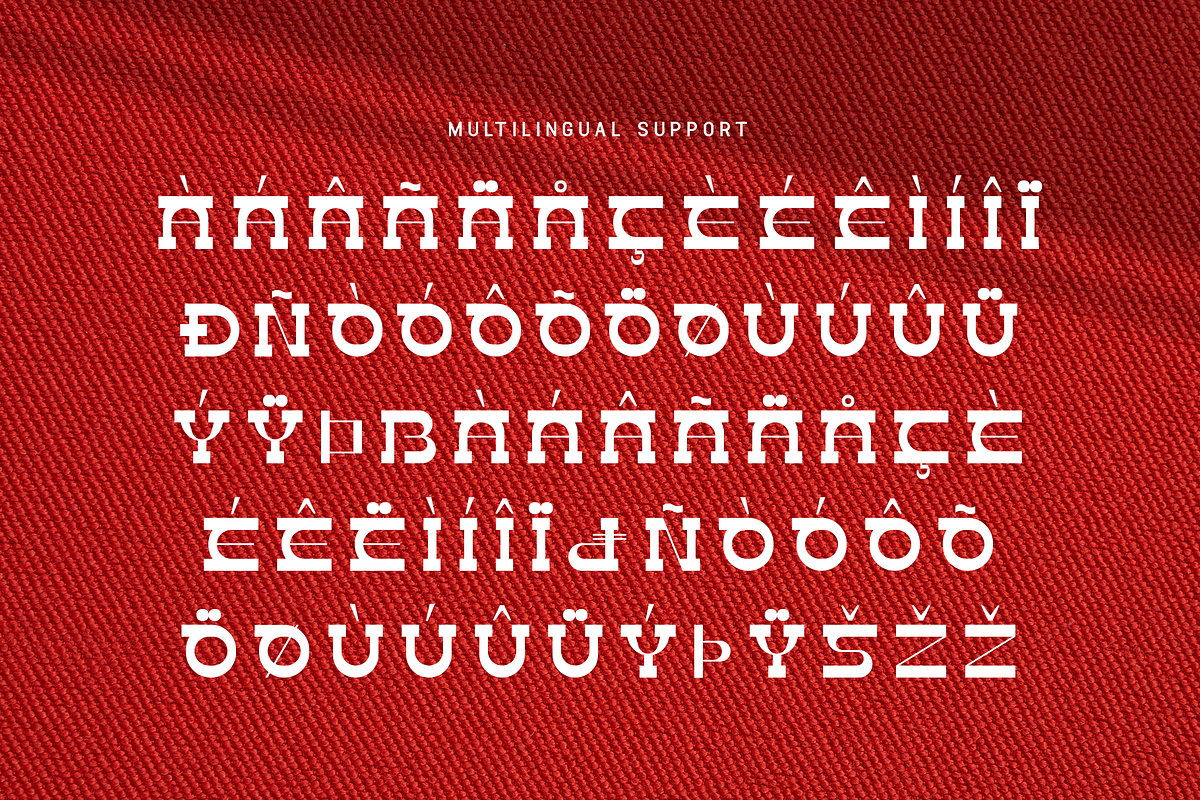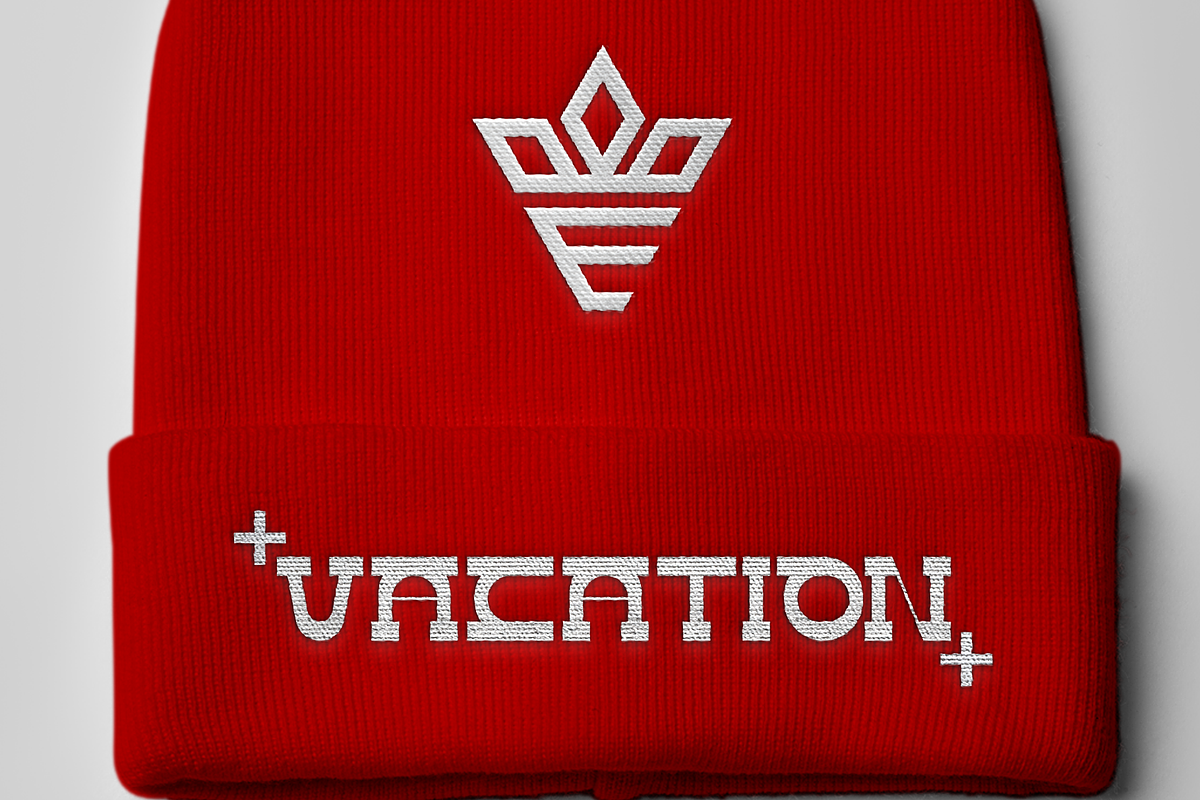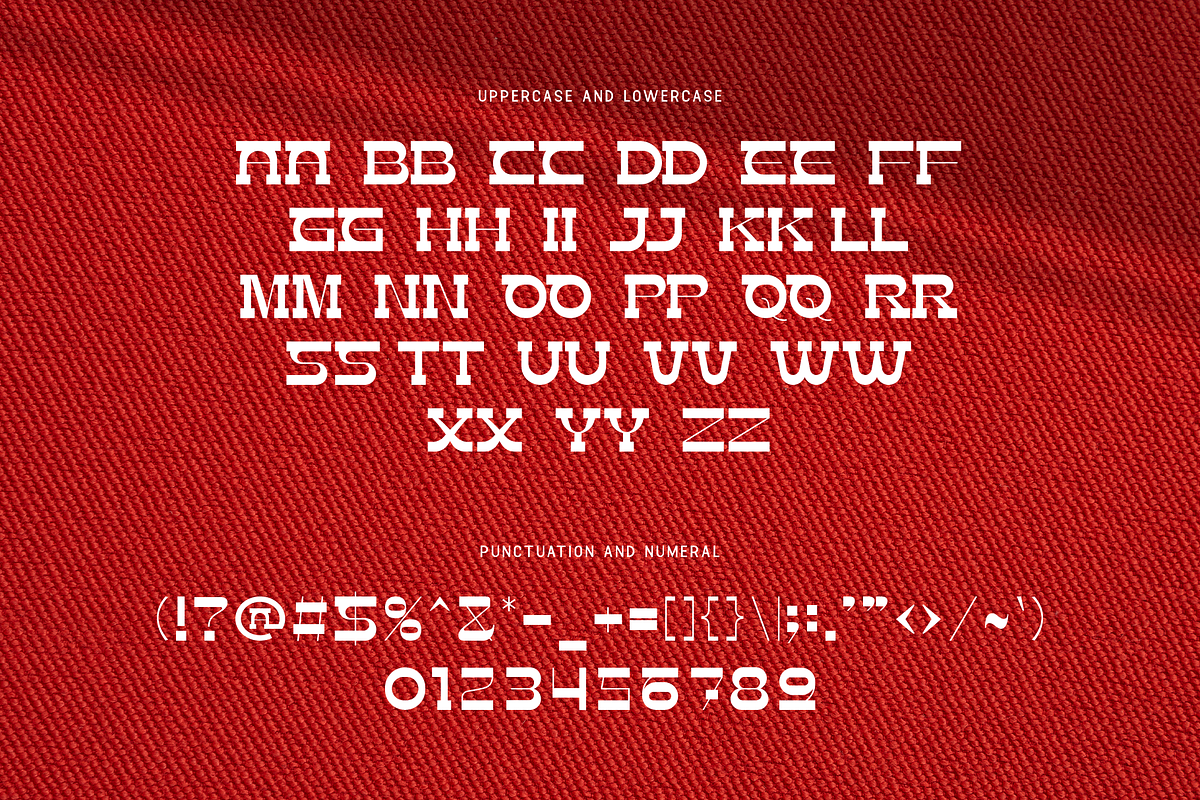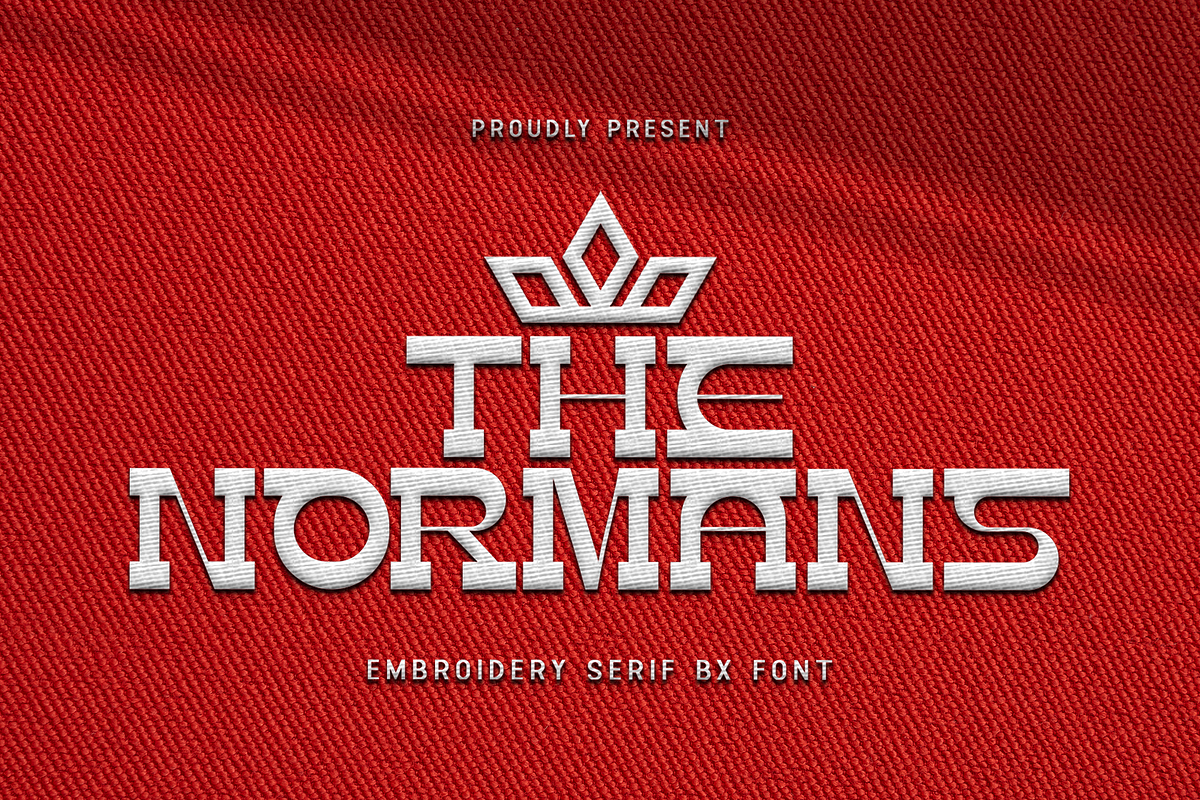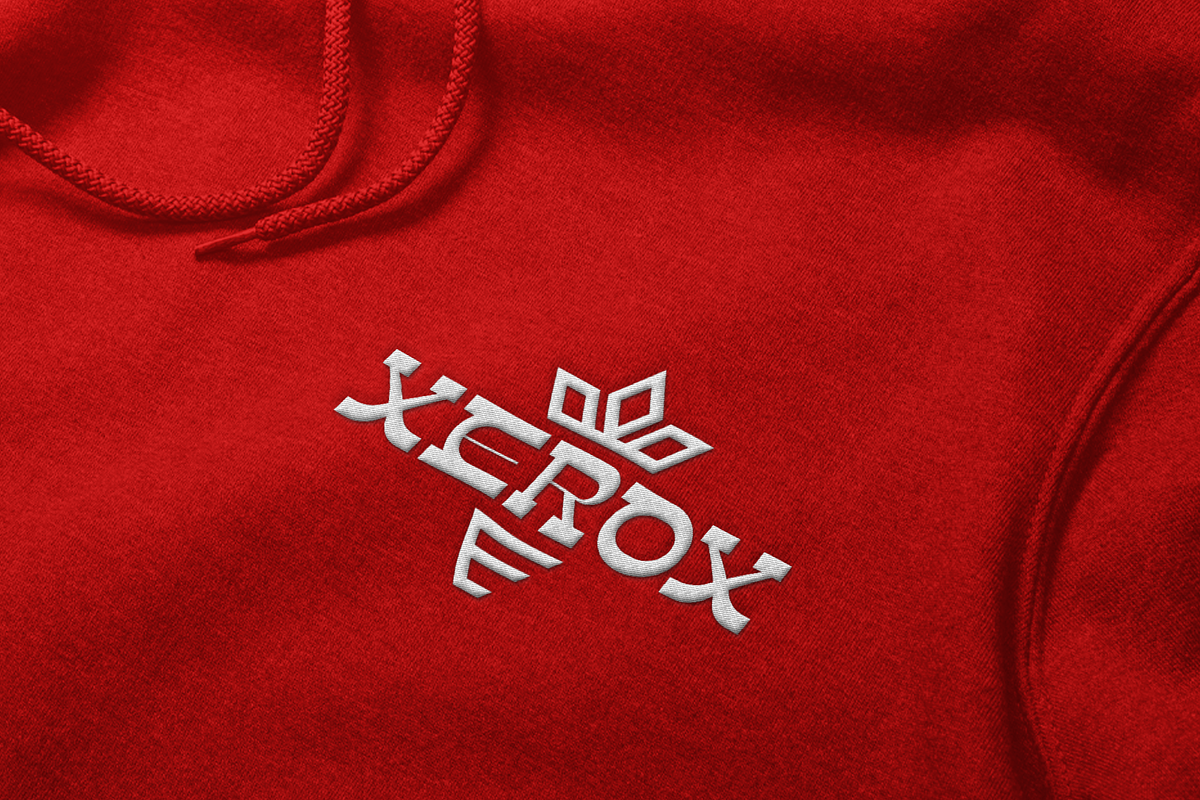
The Normans-Embroidery Serif BX Font
The Normans - Embroidery Serif BX Font
Introducing "The Normans," an embroidery serif BX font that captures the grandeur of historical design with the delicate art of embroidery. Perfect for designers and crafters seeking to add a touch of medieval elegance to their projects, The Normans seamlessly combines classic serif typography with intricate stitched details.
Expertly crafted, The Normans is ideal for a variety of applications including apparel design, home decor, personalized gifts, and more. Each character is designed to replicate the sophisticated texture of embroidered stitches, bringing a unique and regal aesthetic to your typography.
The "The Normans" font includes a comprehensive set of uppercase and lowercase letters, numbers, and punctuation marks, providing versatility and flexibility for all your embroidery needs. Whether you're embellishing clothing or creating decorative home accessories, The Normans enhances your designs with its historic and elegant charm.
Embrace the elegance of medieval craftsmanship with The Normans embroidery serif BX font, and add a noble touch to your creations.